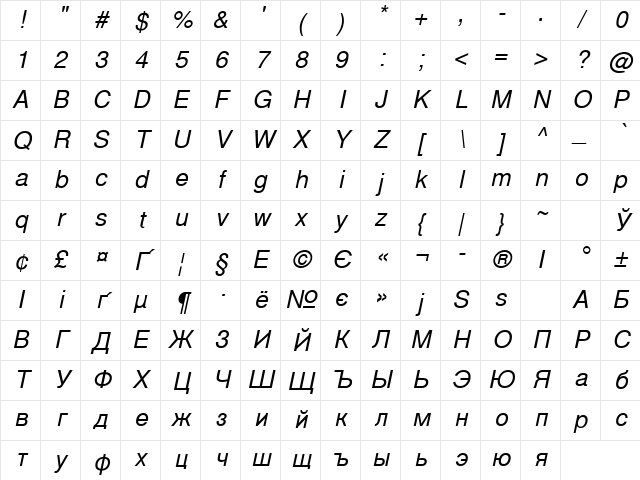
CyrillicEnglishSansSSK Italic Free Font
CyrillicEnglishSansSSK Italic
Complete CyrillicEnglishSansSSK Italic glyph index. Displaying only characters natively supported by CyrillicEnglishSansSSK Italic font.
Design Context for CyrillicEnglishSansSSK
CyrillicEnglishSansSSK is a composed and adaptable typeface that performs quietly and consistently across a wide range of design contexts. The slanted form adds forward momentum and visual energy.
Pro Tip: Use CyrillicEnglishSansSSK for emphasis, pull quotes, and subheadings where its slanted energy can add rhythm to the layout.